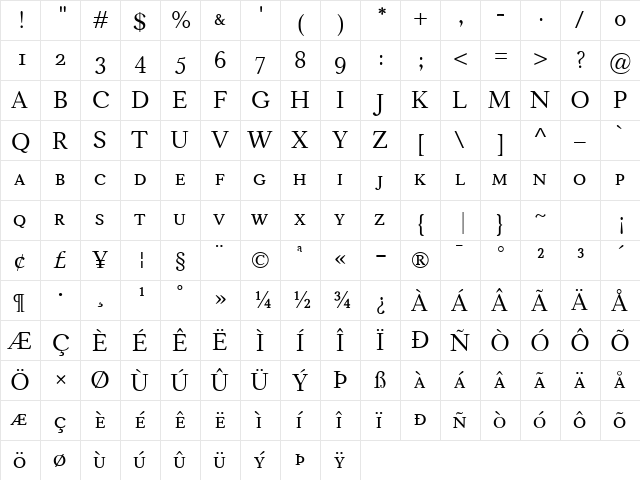
Carniola SmallCaps Regular
Design Context for Carniola SmallCaps Typeface
Carniola SmallCaps is a composed and adaptable typeface that performs quietly and consistently across a wide range of design contexts.